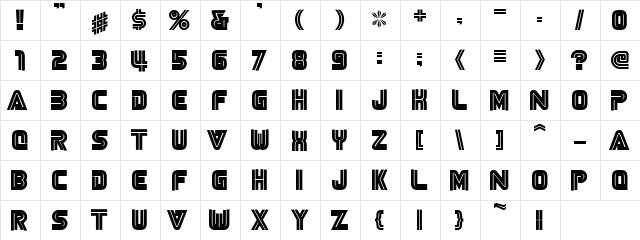
NiseSega Cyrillic Regular
Design Context for NiseSega Cyrillic Typeface
NiseSega Cyrillic is a composed and adaptable typeface that performs quietly and consistently across a wide range of design contexts.